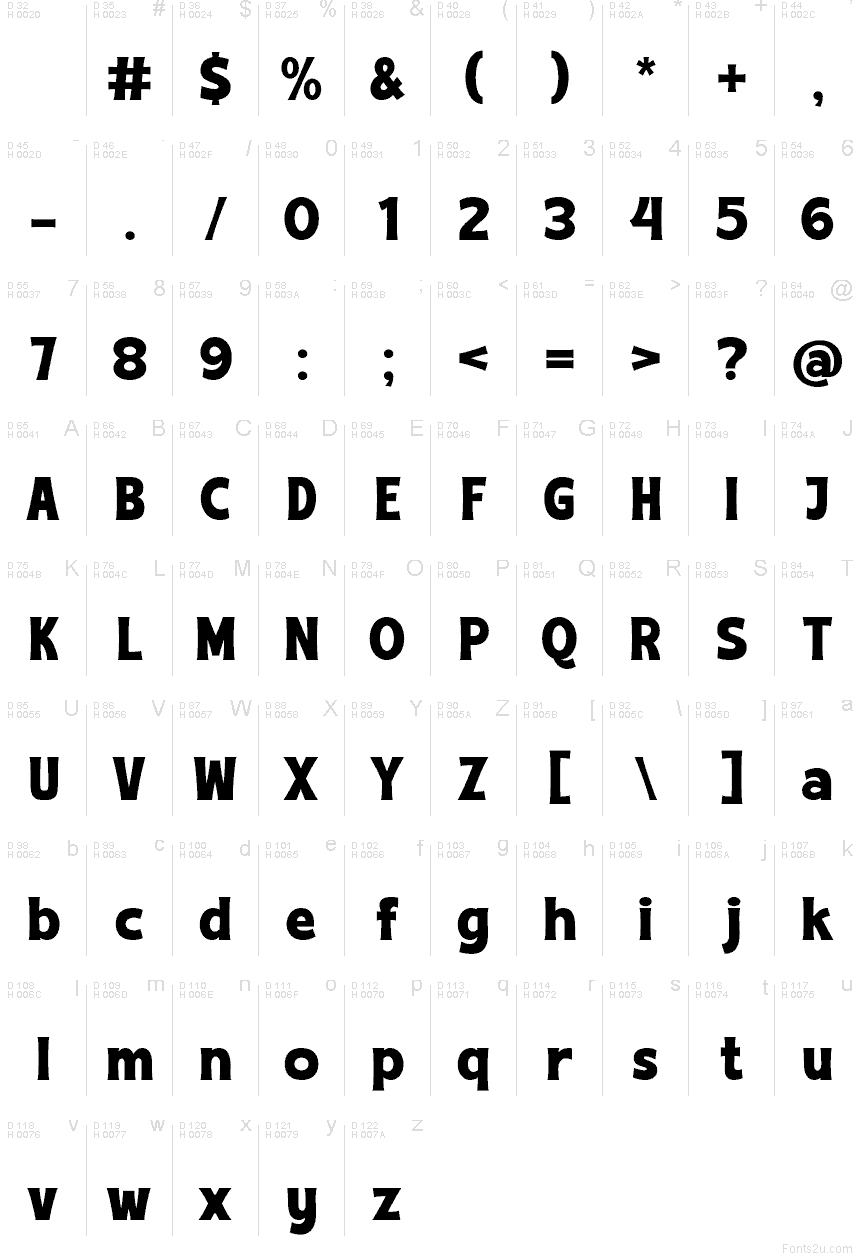
Choldem Rosther Regular
Choldem Rosther font by Afkari Studio is a free comic display typeface with bold, softly rounded shapes that feel both playful and steady. The letters are chunky and evenly weighted, with smooth curves and tight spacing that make words look like they’ve been stamped in inky rubber. It has a friendly, bouncy rhythm without getting messy, so your titles stay fun but still read clearly at a glance.
Using Choldem Rosther, you get a natural fit for kids’ book covers, game logos, YouTube thumbnails, snack packaging, classroom posters, and cheerful social graphics. This free font shines when used large, where its bubbly silhouettes can really pop off the page or screen. For a simple pairing, match it with a clean, light sans serif for supporting text to keep the focus on Choldem Rosther’s playful voice.